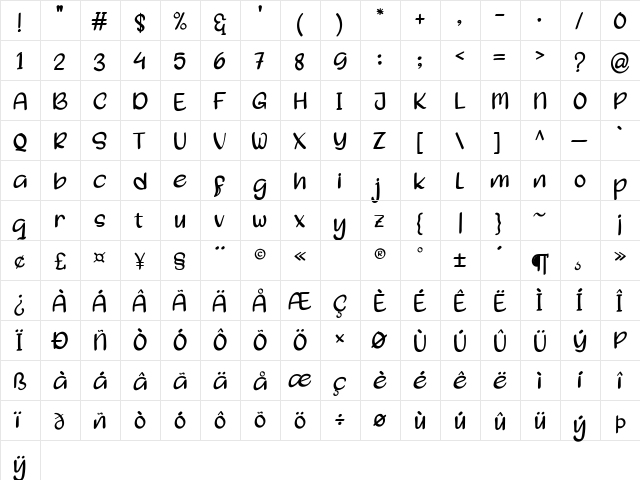
SLARAS Regular
| Designer | ROZI |
SLARAS is a composed and adaptable typeface that performs quietly and consistently across a wide range of design contexts.